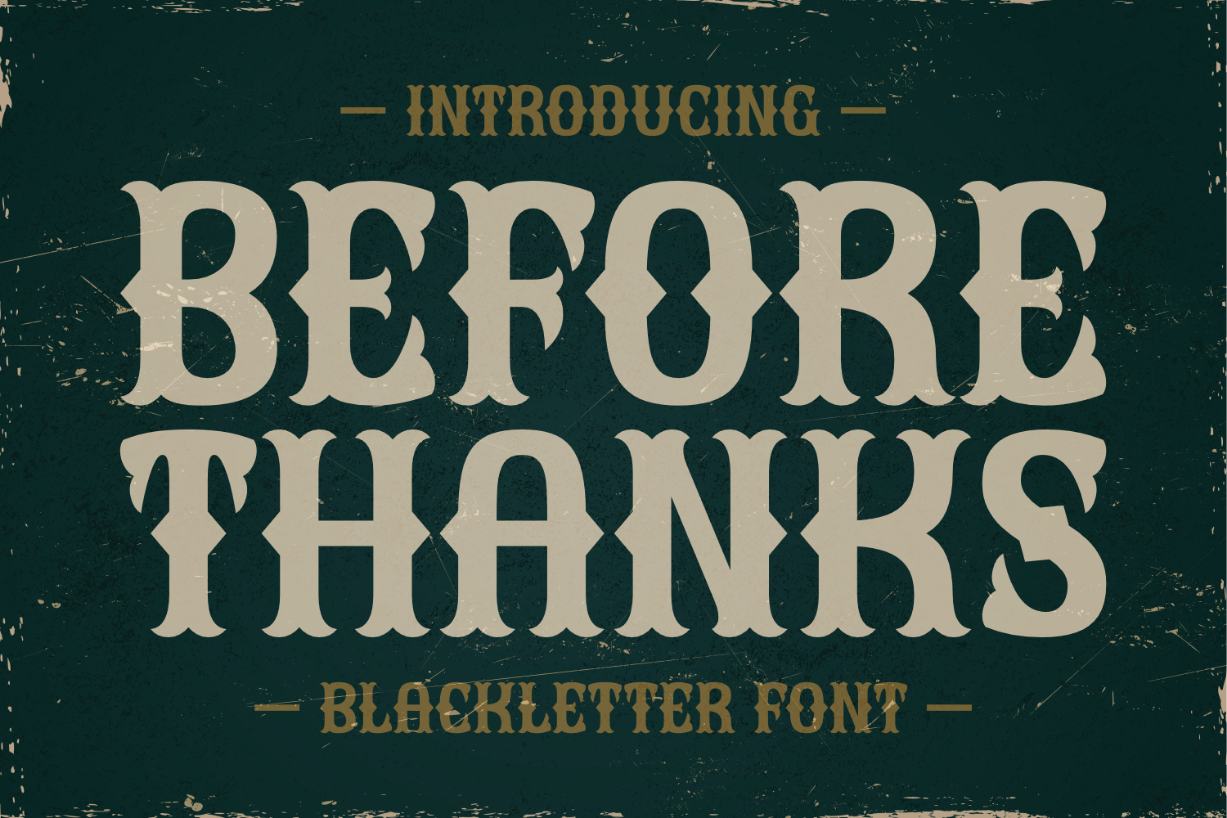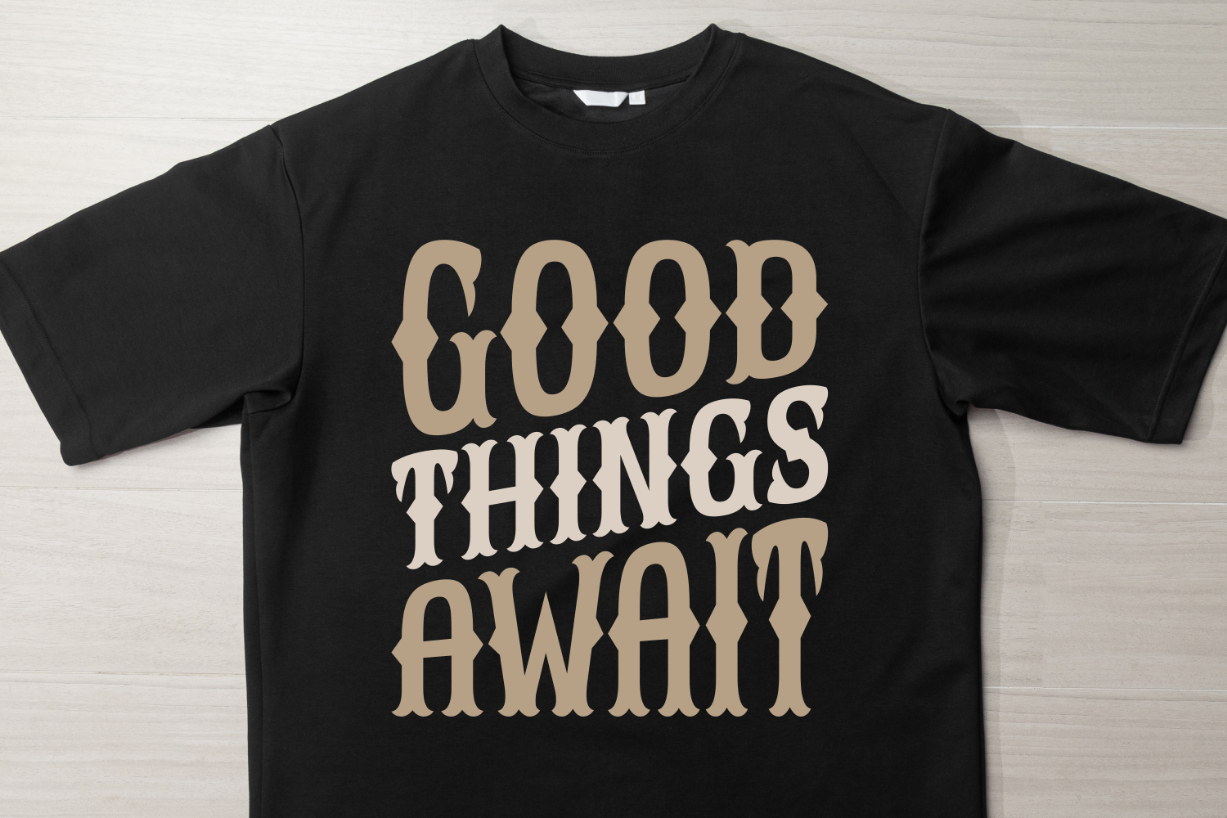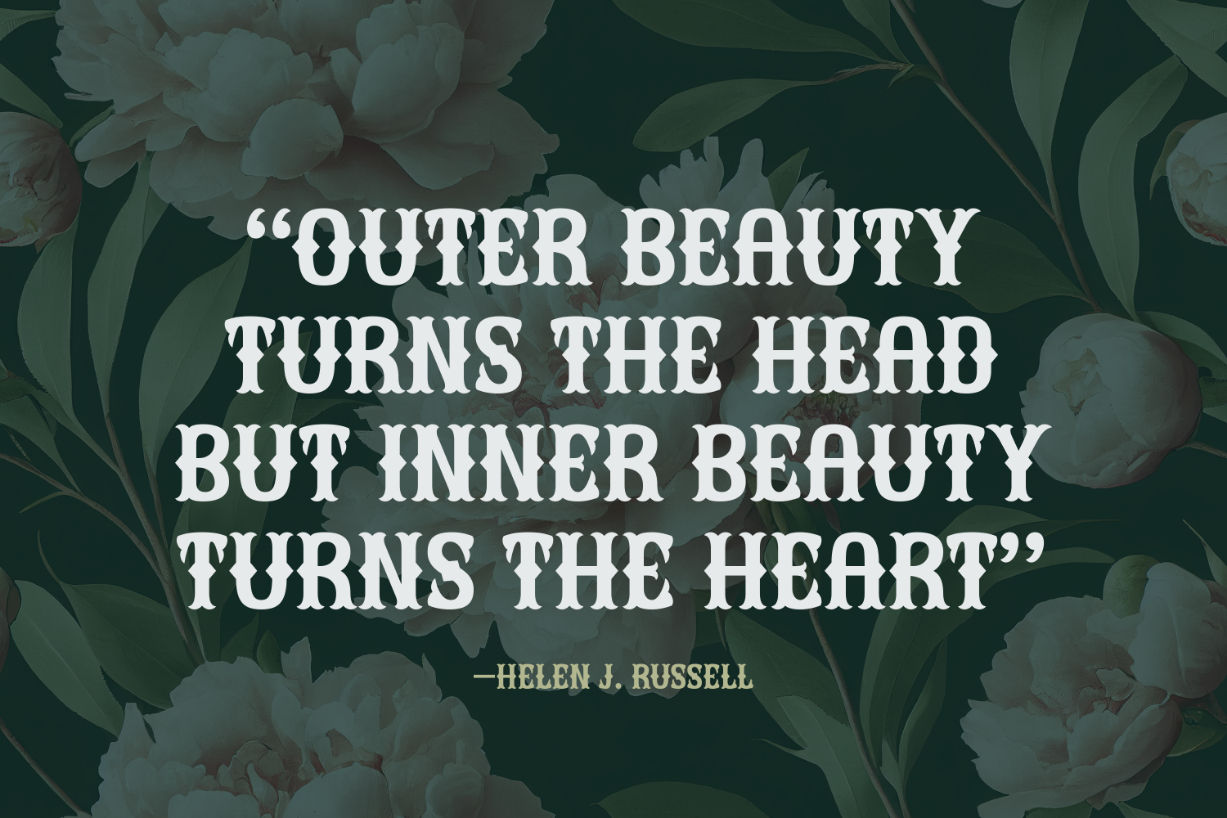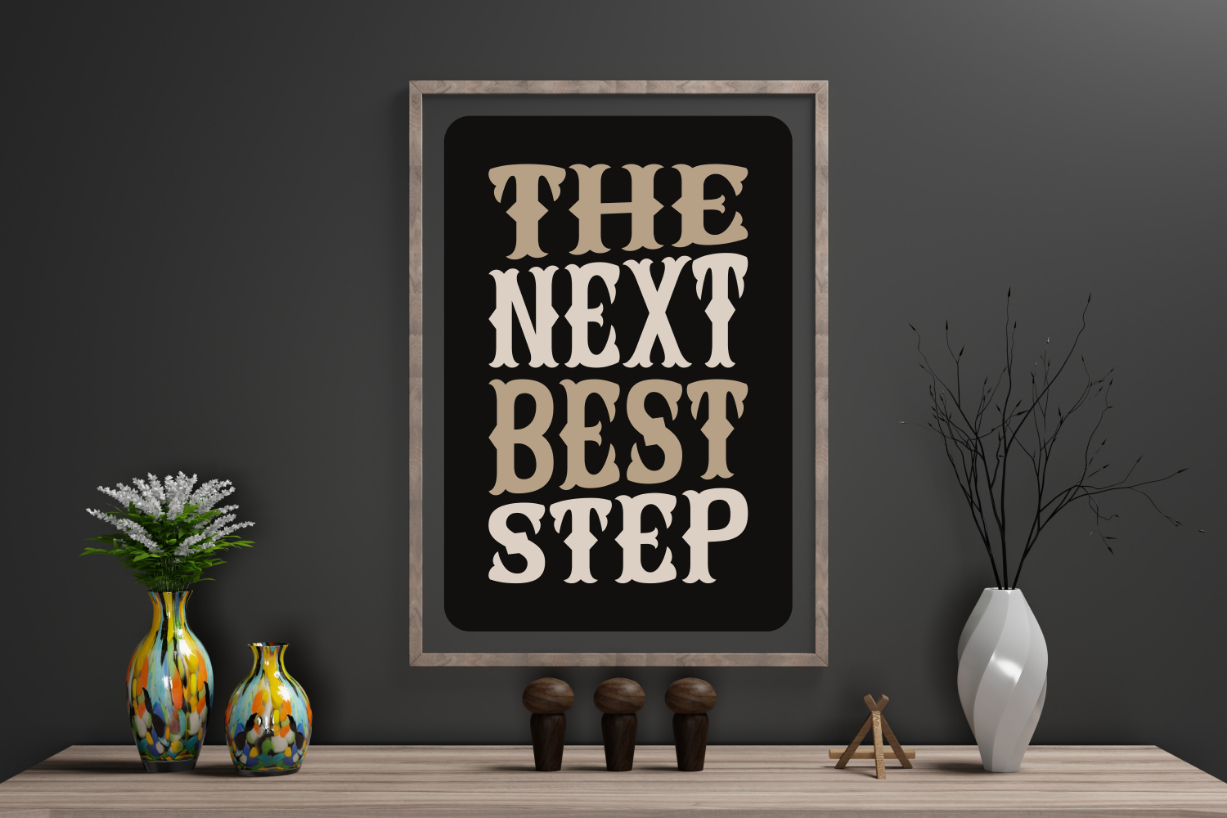
Before Thanks Font
About Before Thanks Font
Before Thanks is a thick and charming blackletter font. The flared swashes give this font its distinctive look, making it an ideal choice for adding charm and personality to your designs. You can use it for branding, logos, signage, t-shirts, cards, and more.